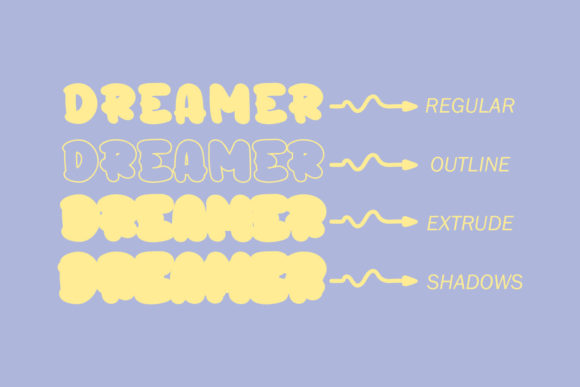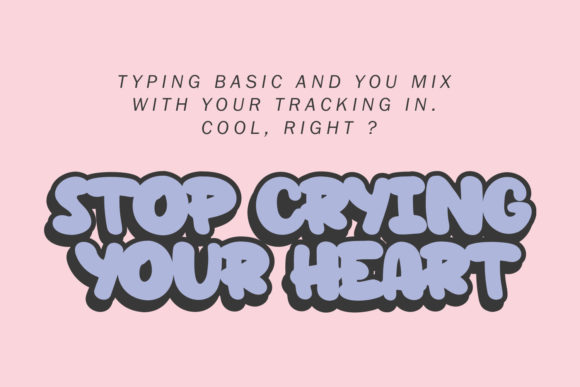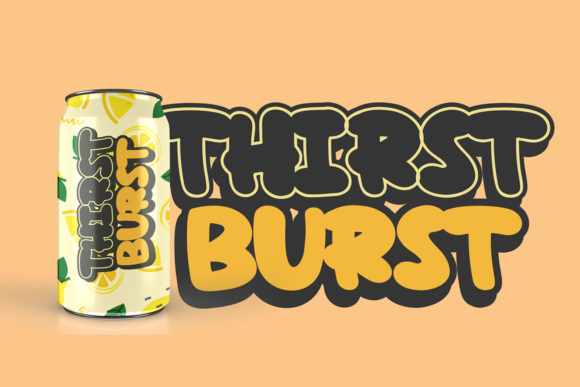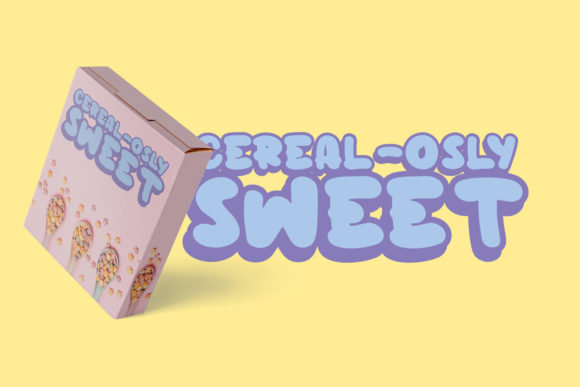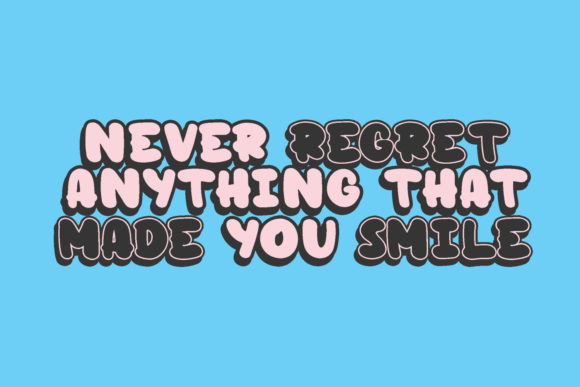
Introduction to Marco Rogers Font Font
Have you ever stared at a blank page, waiting for inspiration to strike? As a designer, this moment can be both exhilarating and intimidating. You know that with the right tool, your creative project can come to life. That’s why we’re excited to introduce you to the vibrant and playful Marco Rogers Font Font, a free download that’s about to become your new design BFF.
With its bubbly, graffiti-styled display font, Marco Rogers Font Font is the perfect addition to any high-quality design resource. Whether you’re working on a letterhead, title, or stationery project, this font’s unique style will add a touch of personality to your work. Plus, its transparent background makes it easy to layer and manipulate in your design software.
As a valuable resource for designers, Marco Rogers Font Font offers endless creative possibilities. Its PUA-encoded glyphs and swashes allow for seamless access and customization, making it an essential addition to any design toolkit.
Key Features of Marco Rogers Font Font
- High-quality, unique font design perfect for creative projects.
- Transparent background, allowing for easy customization and versatility.
- Marco Rogers Font Font is a high-resolution font, suitable for print and digital use, with a resolution of 300 DPI.
- Unique characteristics include its bold, playful style, making it ideal for headings, titles, and creative typography.
Honest Review: Marco Rogers Font Font
As a designer, I’m always on the lookout for high-quality design resources to elevate my creative projects. Recently, I stumbled upon the Marco Rogers Font Font, which caught my attention with its sleek and modern aesthetic.
Here are some things that work well: ✨
- High-quality design: The font is crisp and clear, making it perfect for a variety of design applications.
- Transparent background: This feature allows for seamless integration into any design project.
- Limited customization options: While the font itself is high-quality, there are limited options for customization, which may not be ideal for designers who require more flexibility.
Overall, I’m impressed with the Marco Rogers Font Font’s clean design and versatility. While it may not be suitable for every design project, it’s a valuable resource for designers looking to add a touch of modernity to their work.
Use the Marco Rogers Font Font in combination with other design elements to create a unique and eye-catching design. Experiment with different font sizes, colors, and styles to find the perfect combination for your project. You can also use the font to create a free download template or a design resource pack.
The Marco Rogers Font Font is ideal for creative projects that require a high-quality, transparent background font. Some common use cases include logo design, branding, and advertising materials. You can also use the font to create social media graphics, flyers, and brochures.